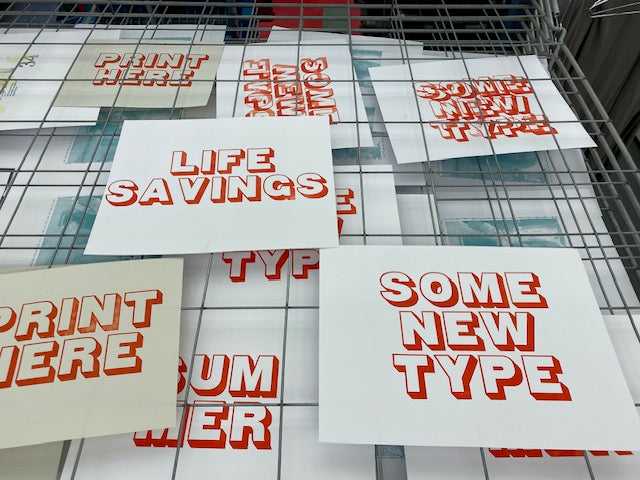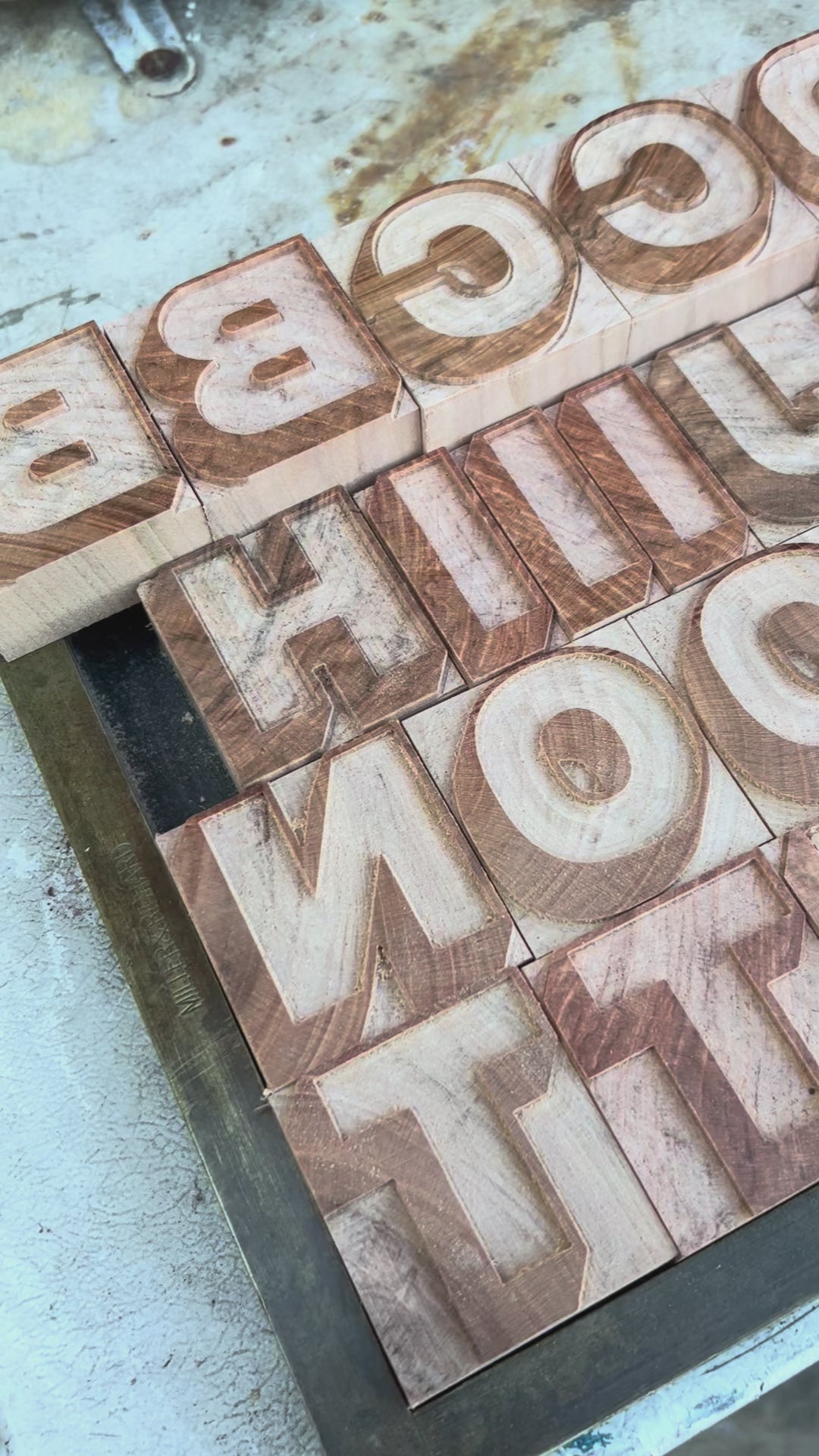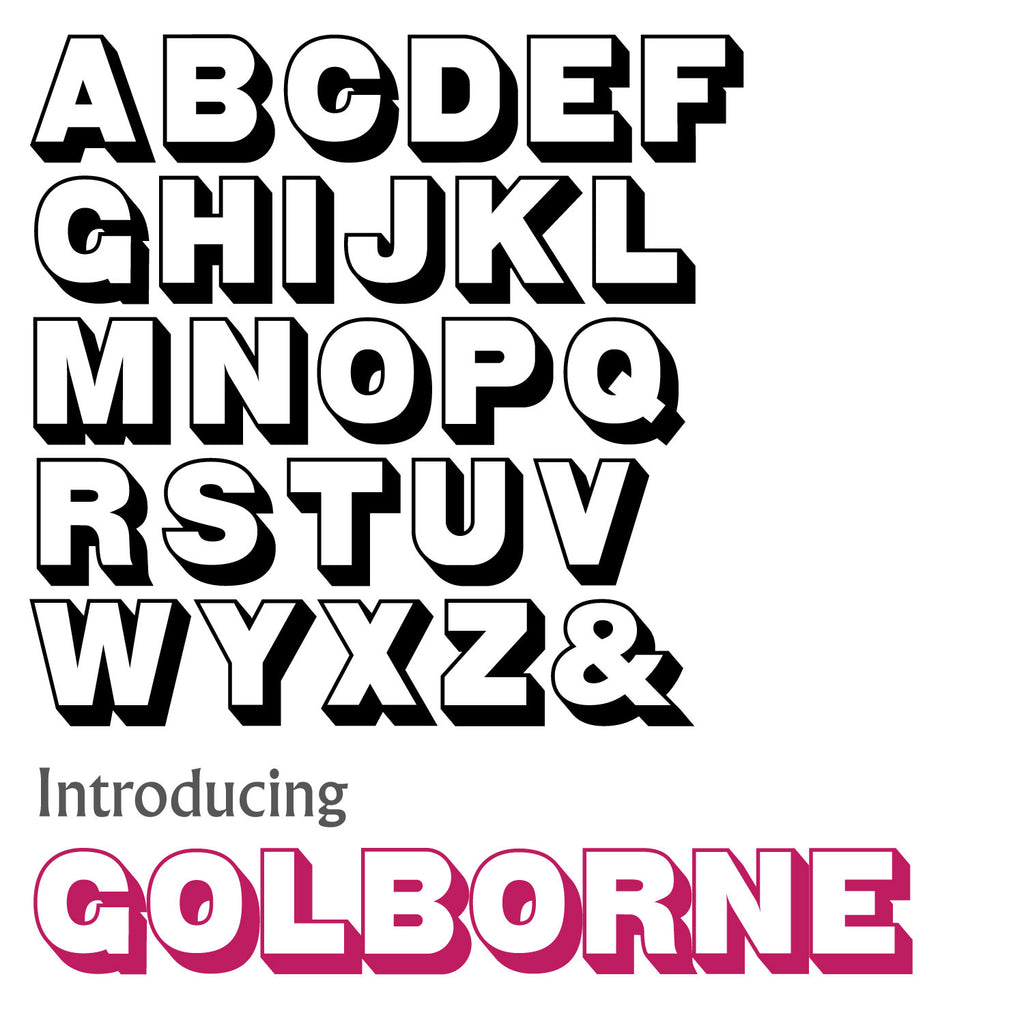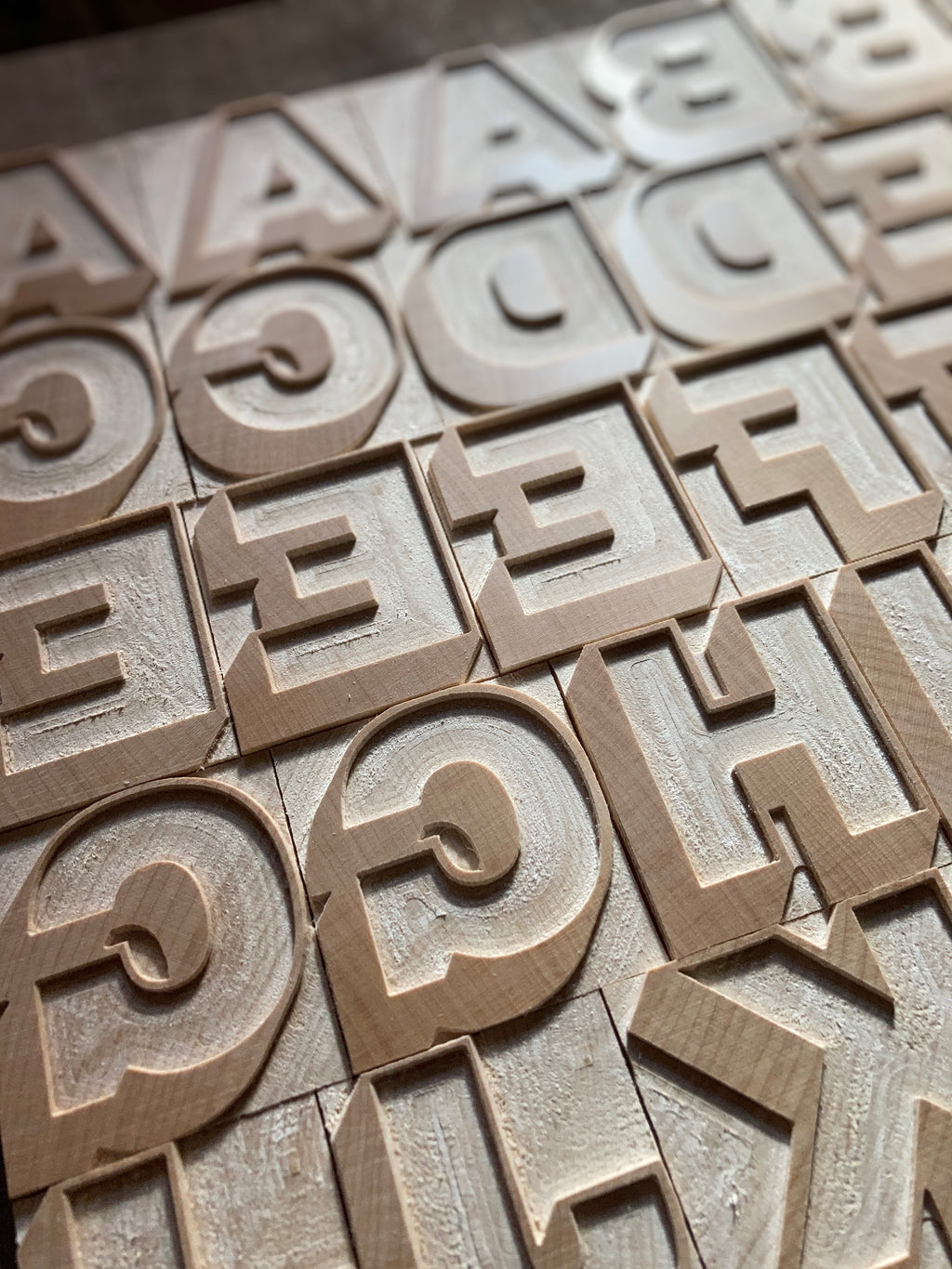
'Golborne' letterpress woodtype typeface
Introducing 'Golborne' - Redrawn by Mark McKellier and based on hand carved woodtype brought from The Old Printing Shop of London based in Portobello Road, London. Named after Golborne Road which is near the market.
Available in 12 line (50.8mm) and 8 line (33.8mm ) versions cut from end grain English hardwood using a combination of modern CNC technology and traditional hand woodworking tools (including an original printers saw), made to English type-high (0.918in or 23.3mm) within plus or minus 0.1mm tolerance, sealed with shellac and hand finished with a traditional polished printing surface.
End grain English hardwood, clear shellac
Each block varies in width however average size is 55mm x 23.3mm x 50.8mm.
Print samples by Gunars Prande at the School of Visual Arts in New York.